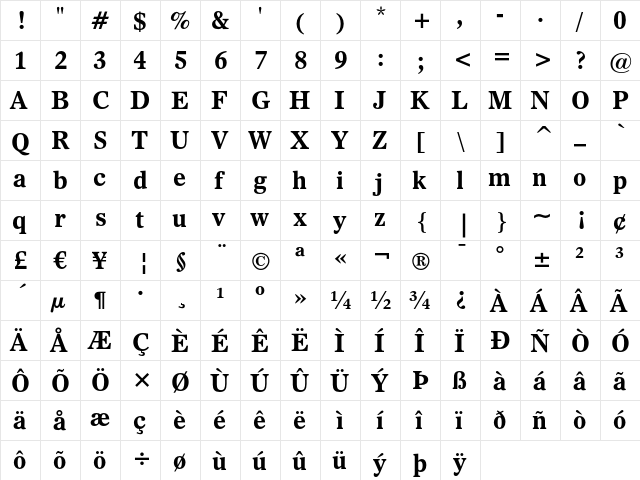
Dutch 811 Bold
Design Context for Dutch 811 Typeface
Dutch 811 takes a measured approach to typography — its balanced proportions and neutral character make it a reliable workhorse for both digital and print work. The heavy weight commands attention and anchors typographic hierarchies.